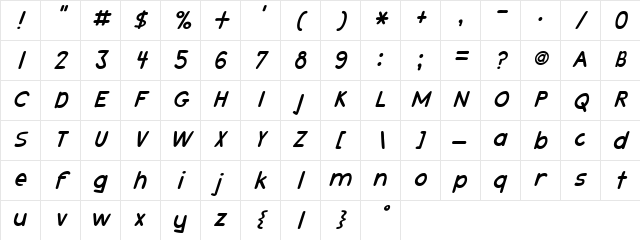
PlayHand Bold Italic
Complete PlayHand Bold Italic glyph index. Displaying only characters natively supported by PlayHand Bold Italic font.
Design Context for PlayHand
PlayHand flows with the natural rhythm of handwritten lettering, making it ideal for designs that call for warmth and personal expression. Its bold stroke weight gives it real presence on the page.
Font Pairing: Combine PlayHand with a simple geometric sans for maximum contrast - the tension between flowing curves and clean structure is a classic typographic pairing.
Pro Tip: Use PlayHand for short runs of text - names, titles, or taglines. Extended body copy in script faces tires the eye quickly.